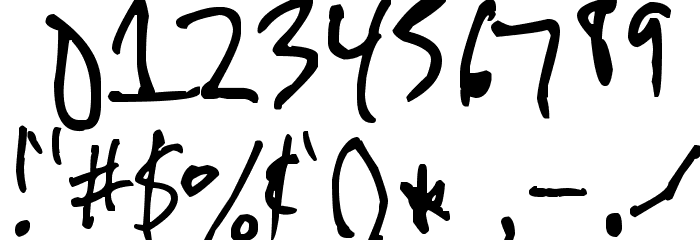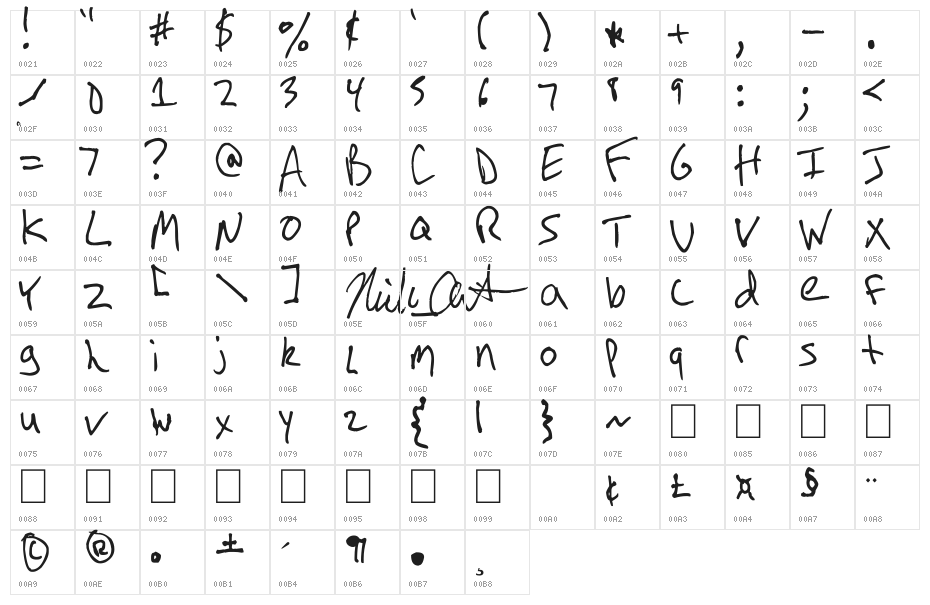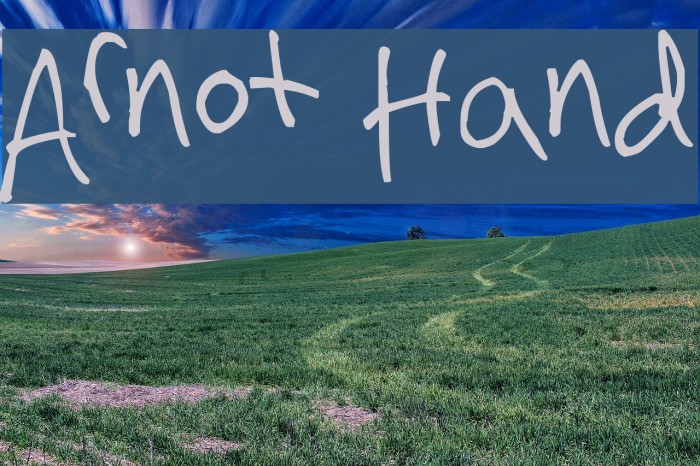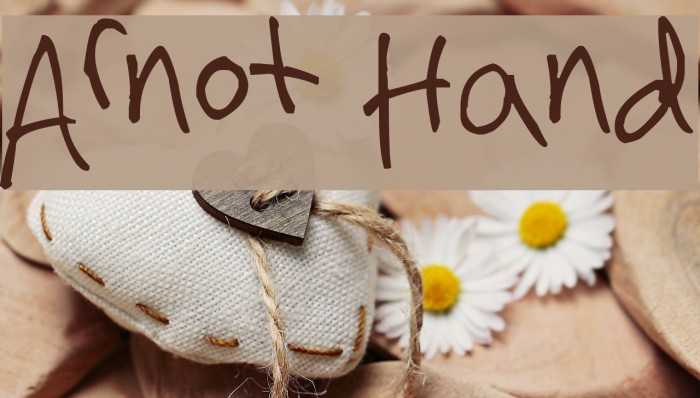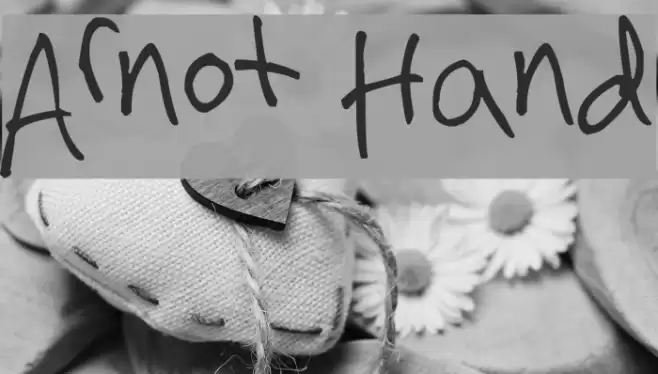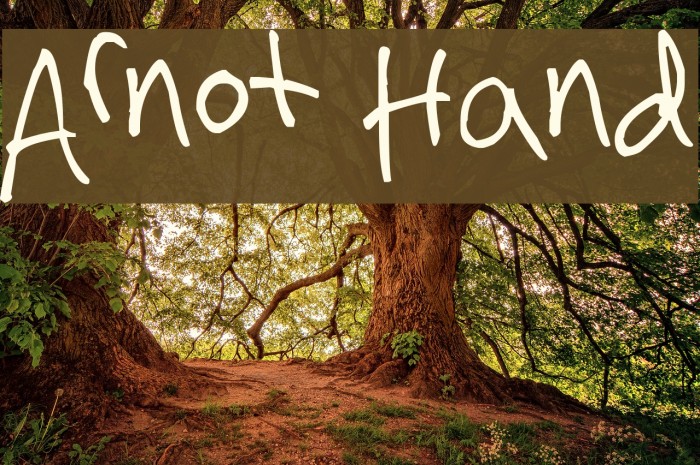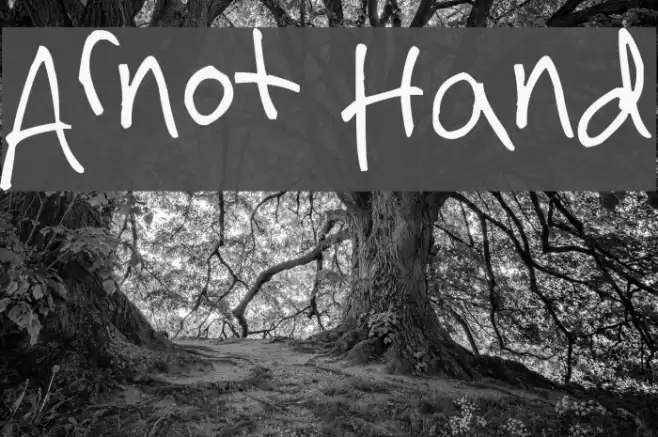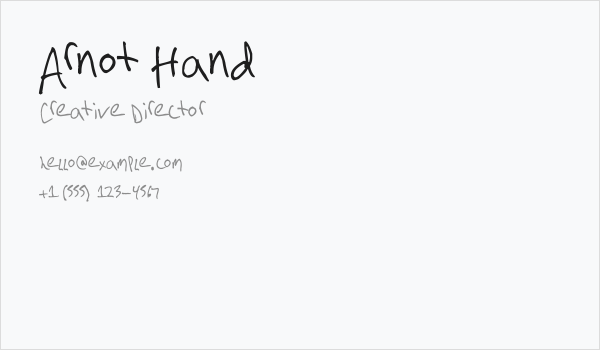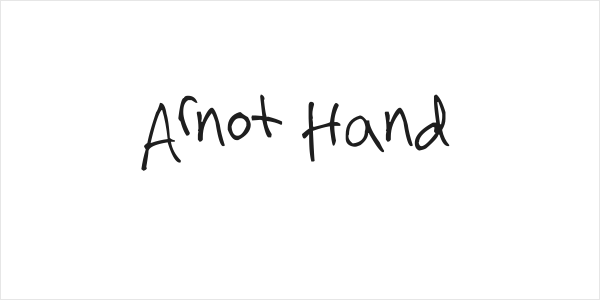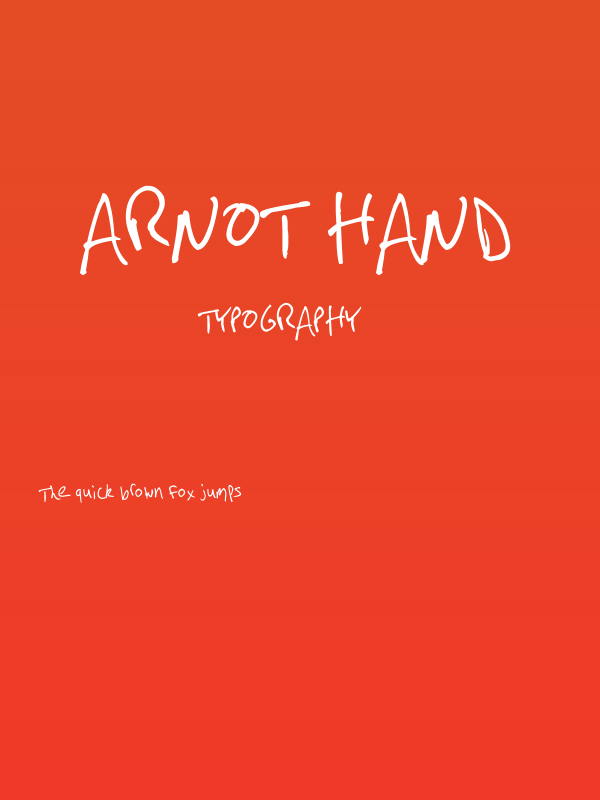
Arnot Hand Font
Arnot Hand Description
This font exhibits a casual, handwritten style with a playful and informal appearance. The letters are unevenly spaced and vary in size, giving it an authentic, hand-drawn feel. The strokes are bold and slightly irregular, adding to its charm and uniqueness. The uppercase and lowercase letters maintain a consistent style, while the numbers and special characters blend seamlessly with the overall design. This font is ideal for projects that require a personal touch, such as greeting cards, invitations, or creative branding.
| Proposed Projects | Ideal for greeting cards, invitations, personal branding, and creative projects. |